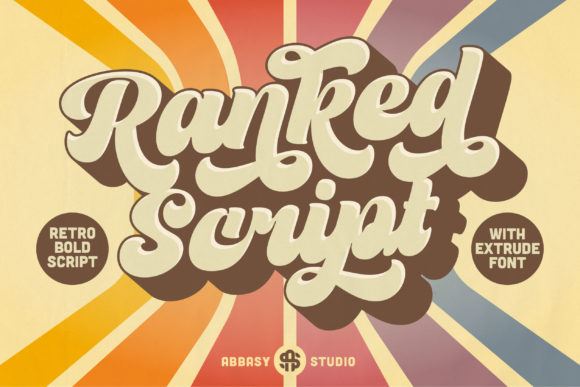
Ranked Script: A Bold Handwritten Typeface for Retro-Inspired Design
In a digital landscape saturated with geometric sans-serifs and highly legible serif pairings, finding a typeface that commands attention while retaining a sense of human imperfection is a specific challenge. Ranked Script emerges as a distinct solution for designers seeking to inject immediate personality into their work. It is not merely a decorative font; it is a tool designed to convey strength, confidence, and dynamic energy through the lens of retro aesthetics. For professionals ranging from branding specialists to independent creators, understanding the nuances of this handwritten style is essential before integrating it into a project workflow.
Defining the Character of Ranked Script
The primary appeal of Ranked Script lies in its ability to mimic the fluidity of a marker or brush stroke without sacrificing structural integrity. Unlike many script fonts that prioritize cursive elegance over readability, this typeface reads as strong and confident. The letterforms are crafted with a bold weight that ensures visibility even at smaller sizes or when placed against complex backgrounds. This characteristic makes it particularly effective for headlines where the goal is to stop the scroll or grab the eye within a split second.
The "retro touch" mentioned in its description is not a vague stylistic choice but a deliberate nod to mid-century commercial typography. The strokes vary in thickness, creating a natural rhythm that feels organic rather than algorithmically generated. This variation adds tons of nostalgic character to designs, evoking an era of hand-painted signage and vintage packaging. However, the font avoids the pitfalls of looking dated or illegible by maintaining consistent baseline alignment and clear counter shapes. It strikes a balance between artistic expression and functional design, making it a versatile asset for modern applications.
Key Characteristics and Visual Impact
- Bold Weight: The heavy strokes provide a solid foundation for visual hierarchy, allowing it to serve as a dominant headline element.
- Dynamic Flow: The connecting lines between characters create a sense of movement, guiding the viewer's eye across the text naturally.
- Retro Authenticity: The slight irregularities in the ink flow simulate real-world application, adding texture and depth to flat digital designs.
- High Legibility: Despite its script nature, the open forms ensure that words remain readable, which is critical for marketing materials and UI elements.
Practical Applications in Professional Workflows
For entrepreneurs and small business owners, the choice of typography often dictates the perceived value of a brand. Ranked Script offers a practical way to elevate a logo or logotype without requiring custom illustration. When applied to a food truck menu, a craft brewery label, or a boutique clothing store sign, the font instantly communicates a sense of craftsmanship and authenticity. It suggests that the product behind the text was made with care, appealing to consumers who value heritage and quality.
Marketers and content creators will find particular utility in using this typeface for social media graphics and email headers. In an environment dominated by clean, minimalist templates, a bold handwritten element can break the monotony and increase engagement rates. The font's dynamic nature allows it to act as a visual anchor, drawing attention to key calls to action or promotional offers. Because it carries such a strong emotional tone, it pairs exceptionally well with minimal body copy. Using a neutral sans-serif for the supporting text creates a sophisticated contrast that highlights the script without overwhelming the reader.
Educators and publishers might also leverage Ranked Script for chapter headings, book covers, or educational materials aimed at younger demographics. The nostalgic feel can make learning materials feel more approachable and less rigid. However, the effectiveness of the font relies heavily on context. It is not a universal solution for every design problem but excels in scenarios where a personal, human connection is desired.
Integration and Pairing Strategies
- Contrast is Key: Avoid pairing Ranked Script with other scripts. Instead, combine it with clean, geometric sans-serifs or classic serifs to maintain clarity.
- White Space Management: Given the bold nature of the letters, generous leading (line spacing) and margins are necessary to prevent the design from feeling cluttered.
- Color Selection: The font performs best with high-contrast color combinations. Deep blacks or dark navies on off-white backgrounds emphasize the retro aesthetic effectively.
- Scale Considerations: While bold, the font should not be scaled too large without careful kerning adjustments, as the connecting strokes can become visually dense.
Evaluating Quality and Reliability
From a technical standpoint, the quality of a font file is paramount for professional use. Ranked Script demonstrates a high level of craftsmanship in its glyph set. The ligatures and alternate characters are thoughtfully designed to ensure smooth transitions between letters, preventing awkward gaps or collisions that can ruin a layout. This consistency is crucial for long-term projects where the font may be used across various platforms, from print brochures to responsive web designs.
Making the Decision
When evaluating whether Ranked Script fits your needs, ask yourself if your project requires a sense of history and human touch. If the goal is to convey confidence and dynamism through a bold, handwritten style, this font delivers on those promises. It is a robust tool for adding nostalgic character to designs, provided it is used with intention and respect for its visual weight. For those willing to experiment with contrast and hierarchy, Ranked Script offers a compelling avenue to elevate creative output and connect more deeply with audiences.